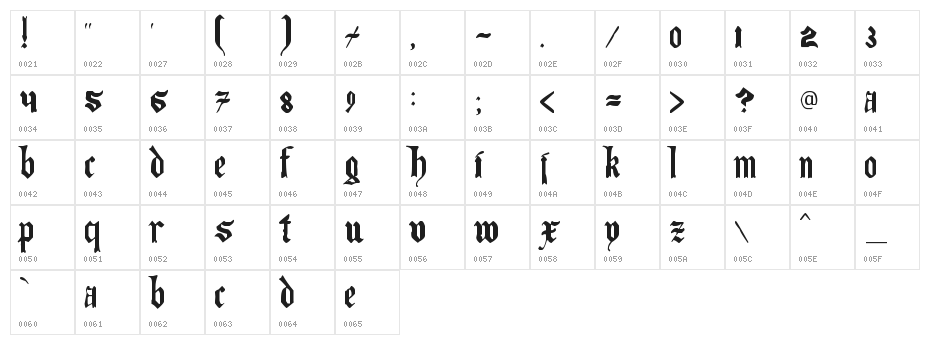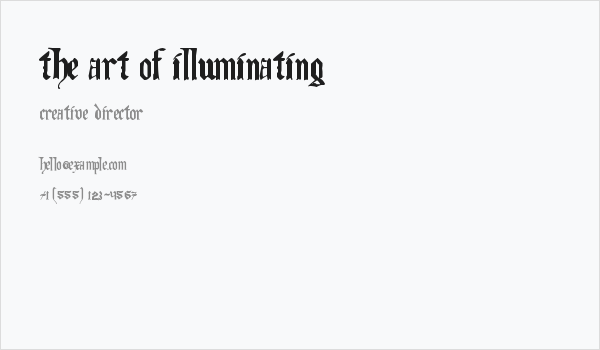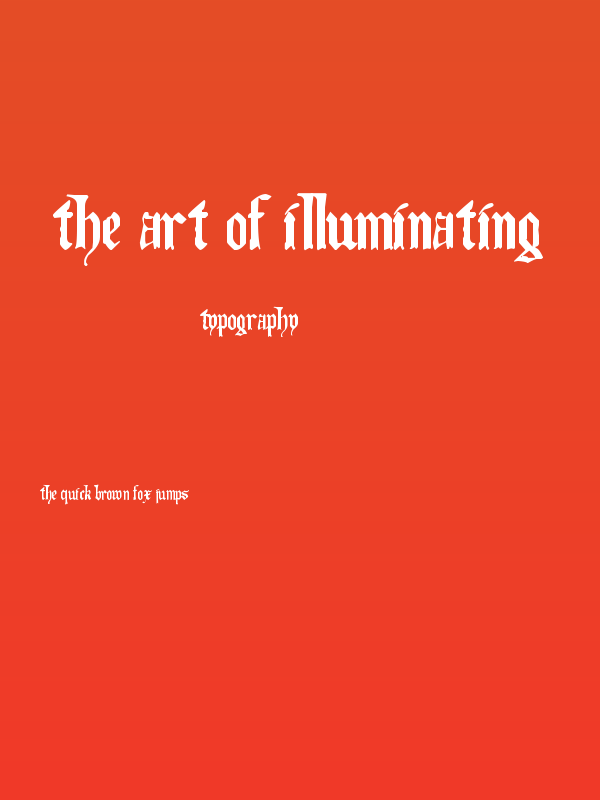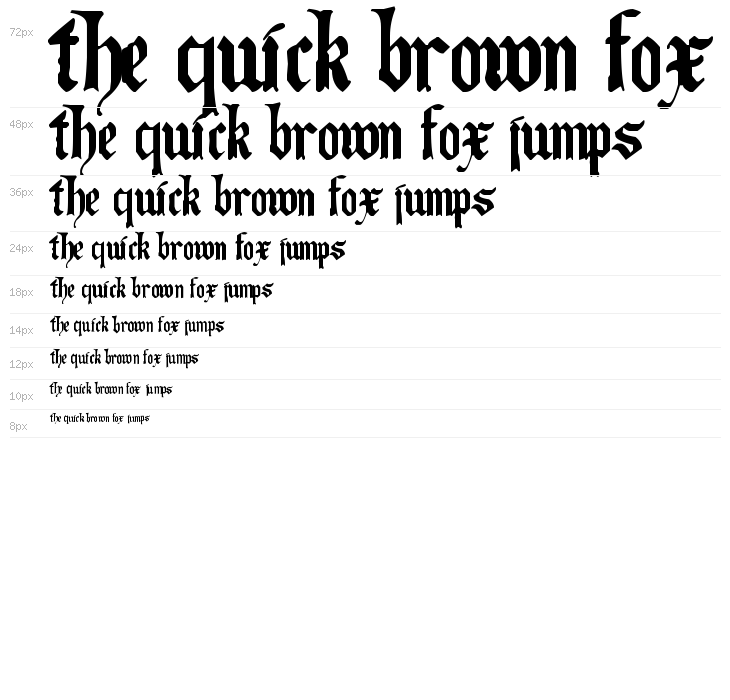
The Art of Illuminating Font
The Art of Illuminating Description
This font is a classic representation of the Blackletter style, characterized by its intricate and ornate design. The letters are sharply angular with dramatic strokes, embodying a medieval aesthetic that is both bold and decorative. The uppercase and lowercase letters maintain a consistent style, with elaborate serifs and a high contrast between thick and thin lines. The numbers and special characters are equally detailed, adding to the overall cohesive look. This font is perfect for projects that require a historical or gothic touch, such as book covers, posters, or themed events. Its distinct appearance makes it stand out, capturing the essence of traditional calligraphy.